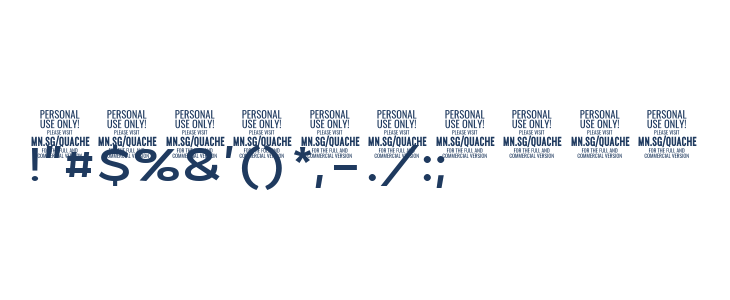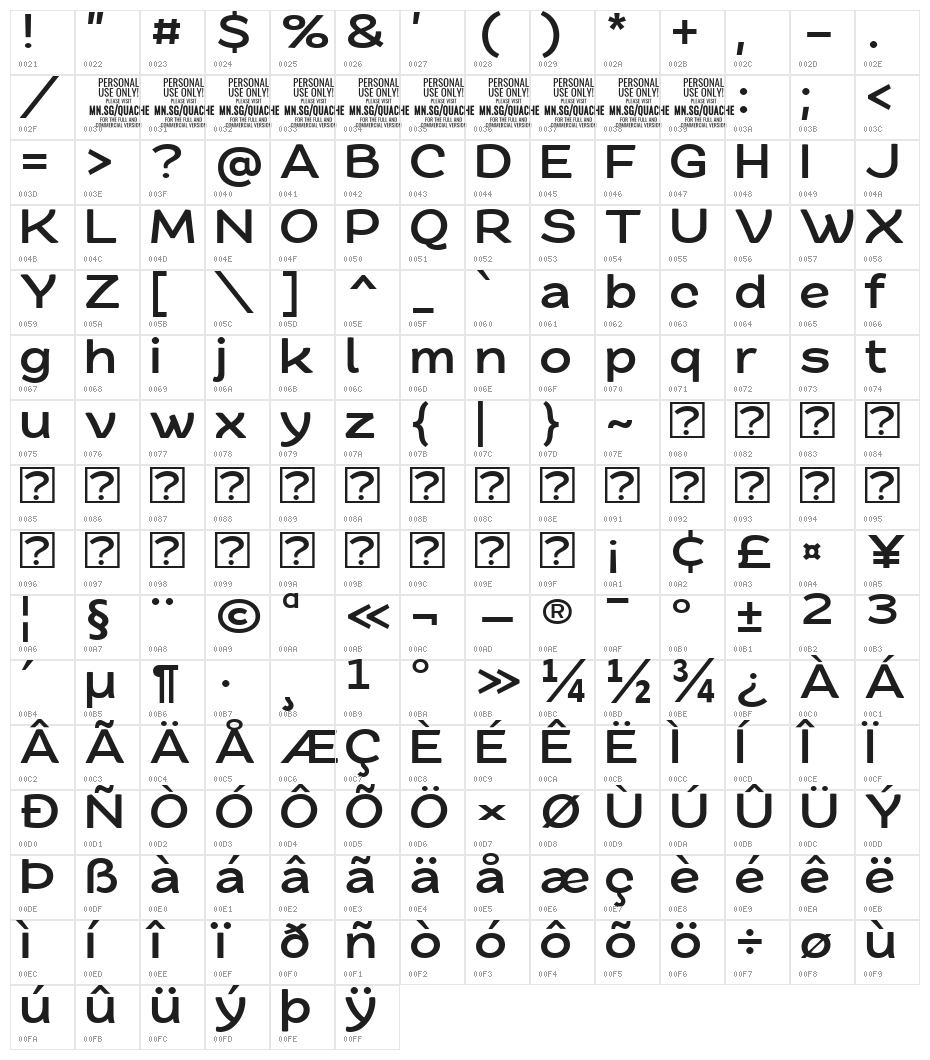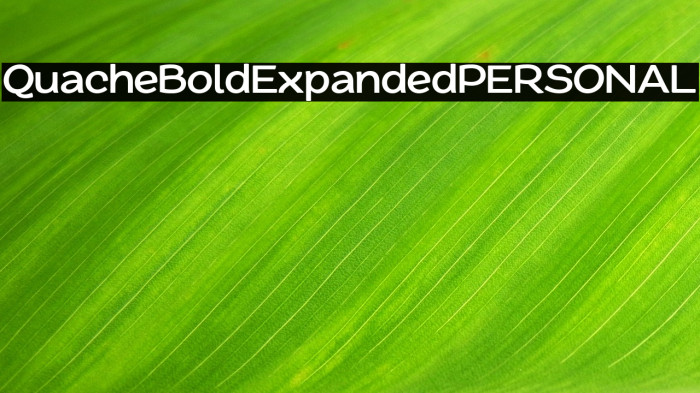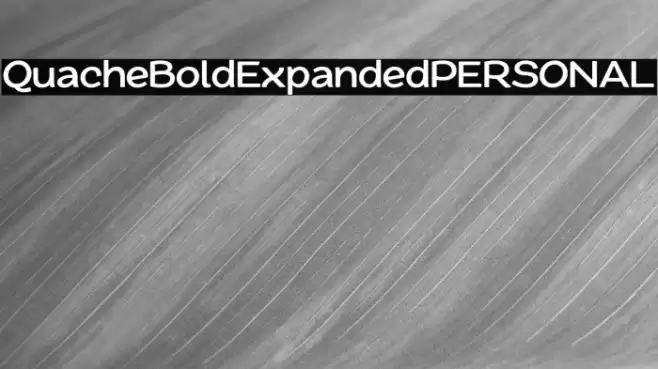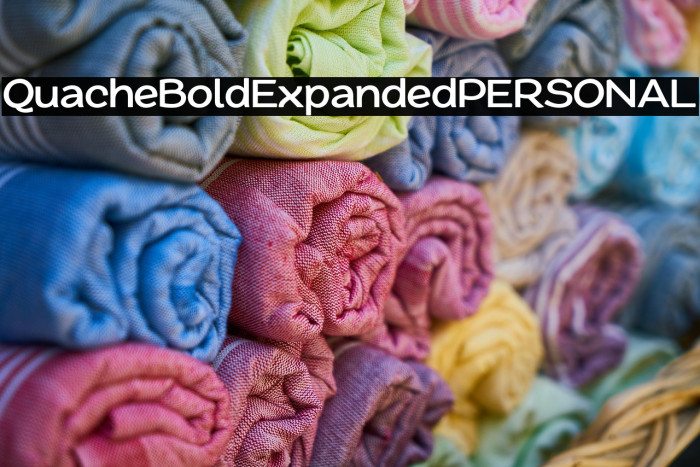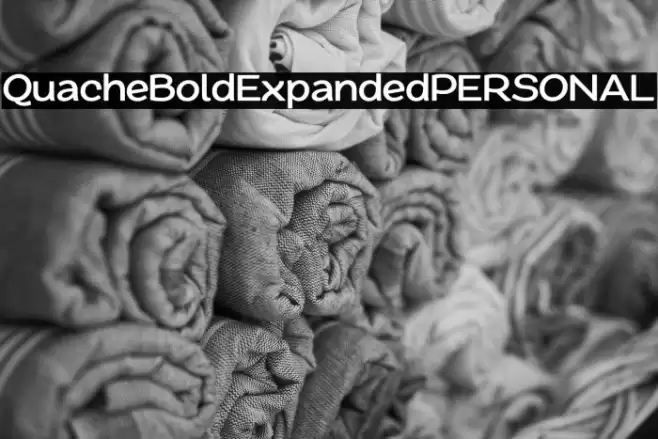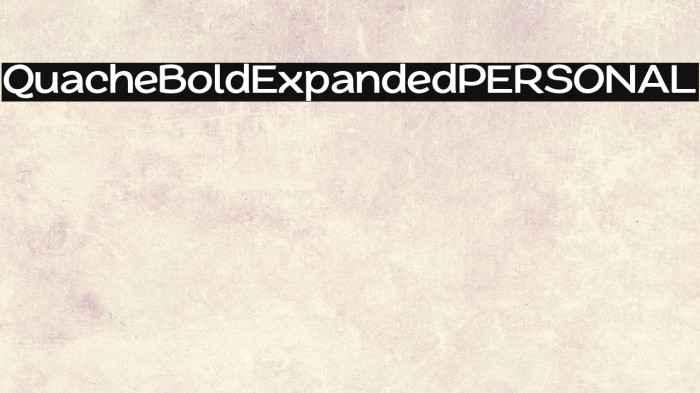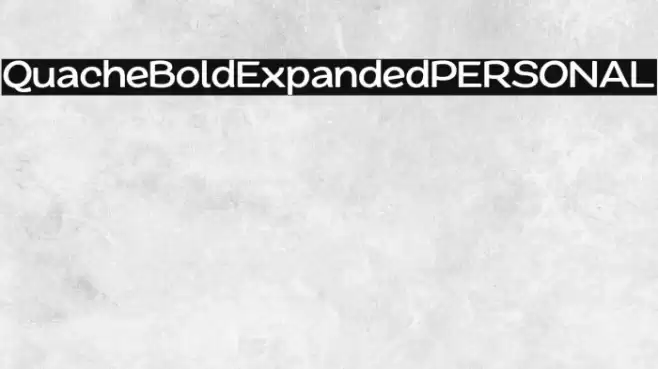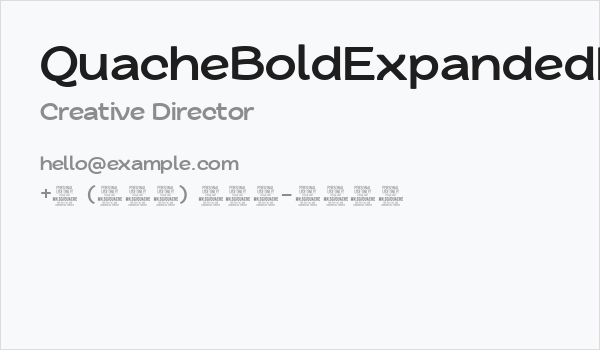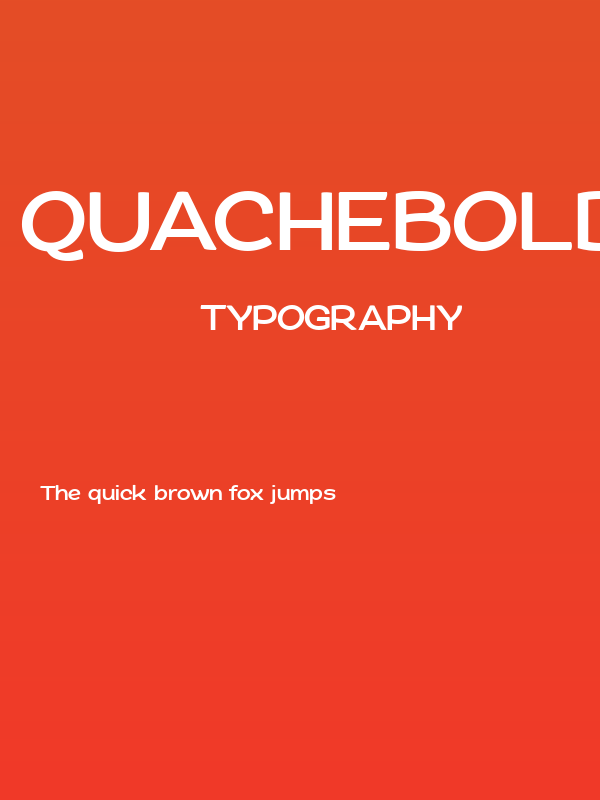
QuacheBoldExpandedPERSONAL Font
QuacheBoldExpandedPERSONAL Description
This font features a bold and expanded style, characterized by its clean and modern sans-serif design. The uppercase and lowercase letters are well-proportioned, with a consistent stroke width that gives it a uniform appearance. The characters are slightly rounded, adding a touch of softness to the overall look. The numerals and special characters maintain the same boldness, ensuring readability and visual balance. This font is suitable for a variety of design applications, offering a contemporary and professional aesthetic.
| Proposed Projects | Ideal for branding, advertising, headlines, and digital media projects where a strong and modern presence is required. |